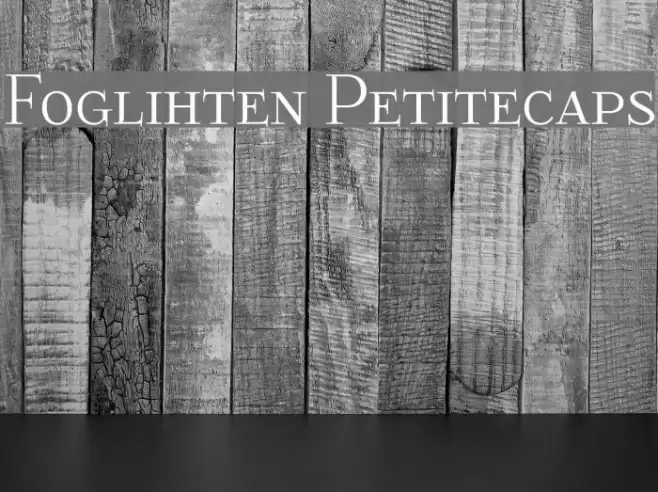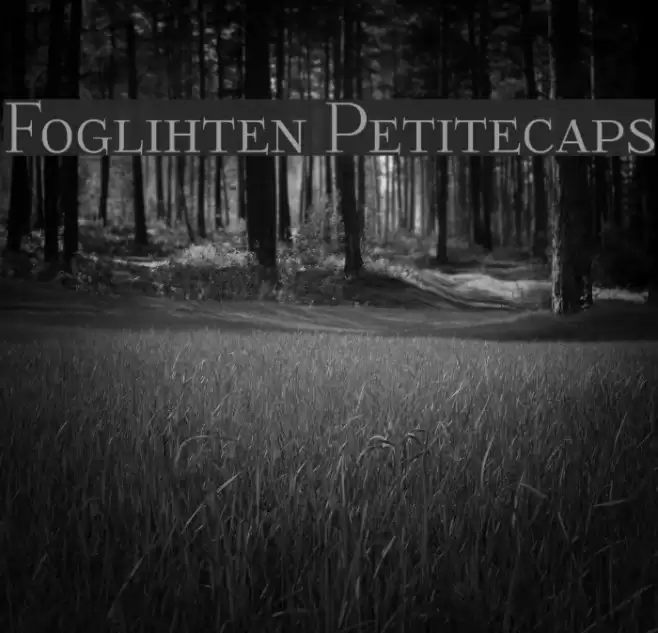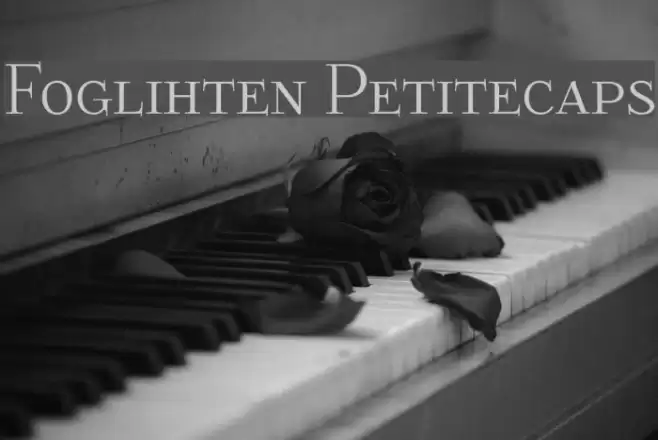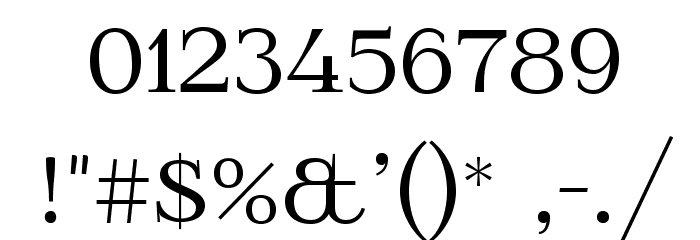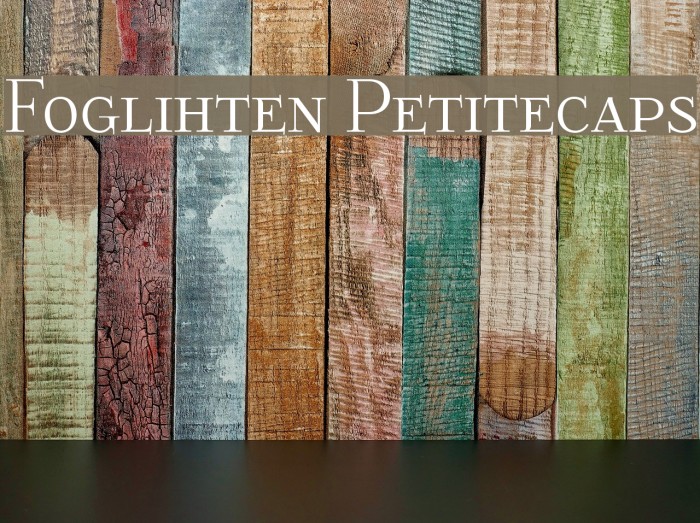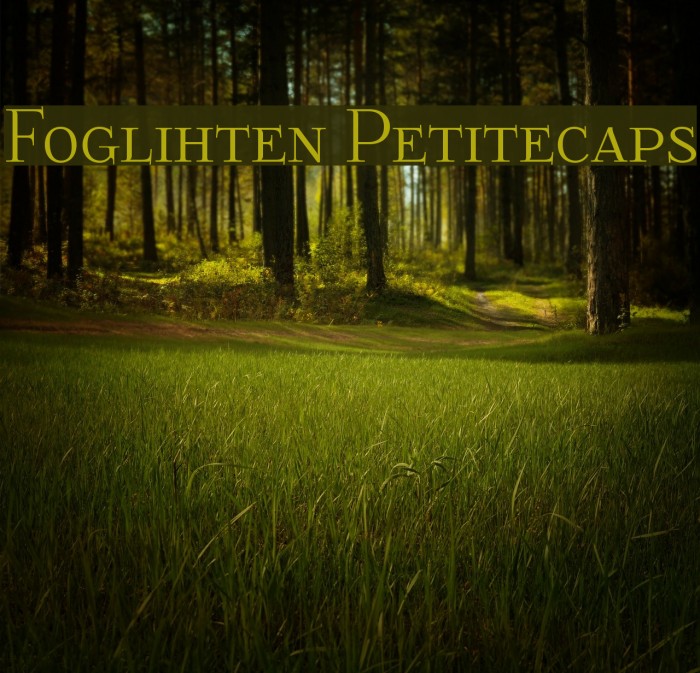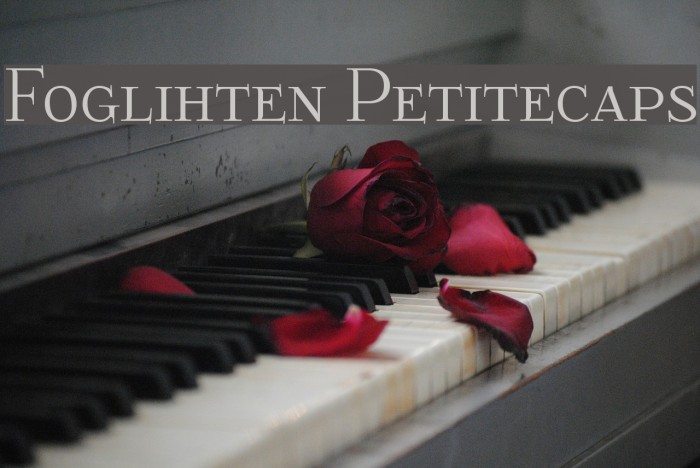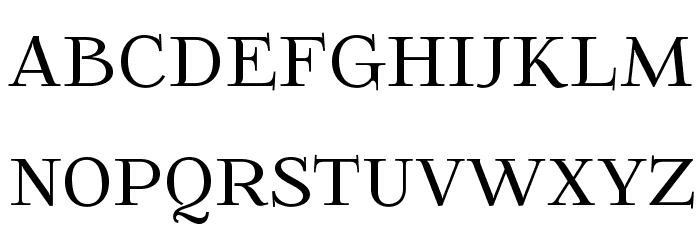
Foglihten Petitecaps
This font features a classic serif style with elegant, elongated strokes and a refined appearance. The uppercase letters exhibit a traditional serif structure, while the lowercase letters maintain a consistent height, giving a uniform look. The numerals are proportionate and align well with the overall design, ensuring readability. Special characters are crafted with attention to detail, complementing the font's sophisticated aesthetic. The font's balance between stroke thickness and spacing provides a harmonious and legible text appearance, suitable for various design applications.
A classic serif font with elegant strokes and refined design.
- Proposed Projects: Ideal for book covers, formal invitations, branding materials, and editorial design.
- Category: Serif
- Overall Style: Classic